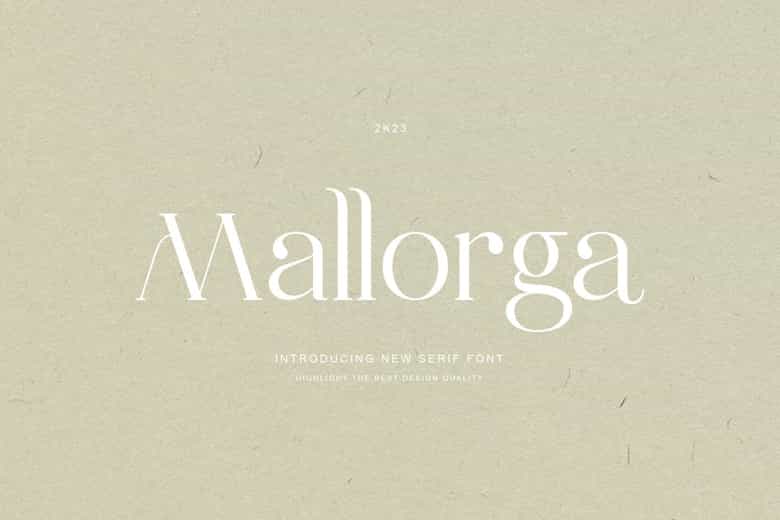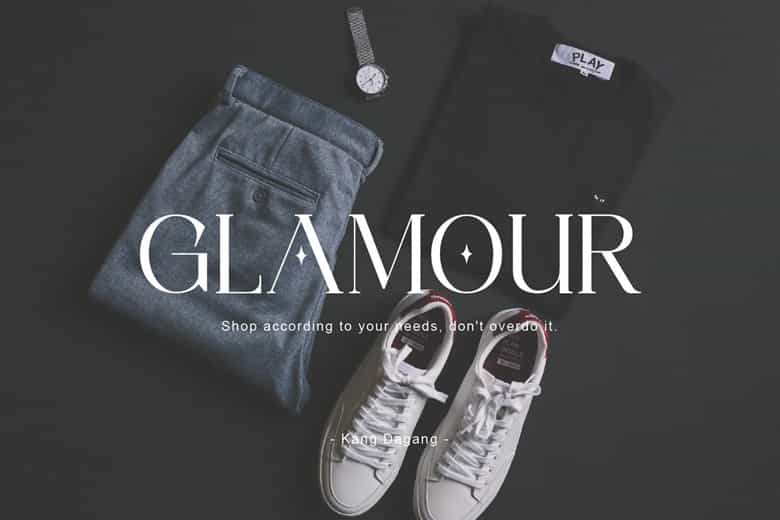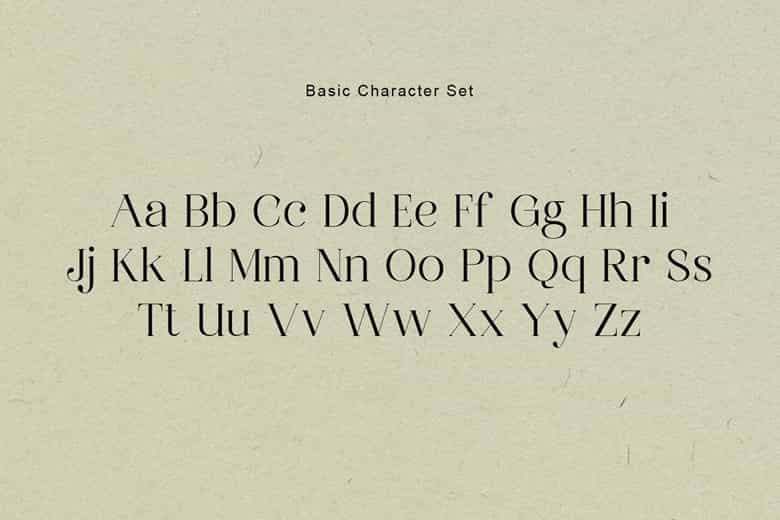
Discover Mallorga Font, part of the Serif collection—a versatile and unique font perfect for adding a personal touch to your projects. Download it for free and enjoy crafting designs with style, from invitations to social media posts. This font is available exclusively for personal use, giving you the freedom to create without limits. Unlock your creativity with Mallorga Font today!
Mallorga is a new serif font. It mainly has a modern look by incorporating design changes. Mallorga is designed to help you achieve your best results. You can apply this font on wedding invitation, logos, posters, website, covers, textiles, billboards and many other.